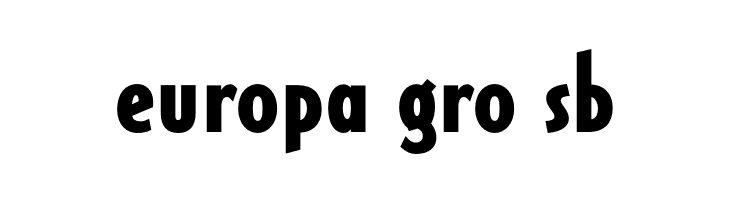
A bold, distressed font with a rugged, vintage texture.
A classic serif font with elegant curves and moderate contrast.
A bold, angular font with sharp lines and a geometric style.
Ornamental dingbat set with compass roses and fleur-de-lis motifs.
A bold, rune-inspired font with sharp, angular edges.
A decorative font inspired by ancient symbols and runes, featuring bold, hand-drawn characters.
A bold, rounded font with smooth curves and consistent width, ideal for modern designs.
A bold, rounded, and modern geometric font with uniform thickness.
A bold, angular font with a distressed, rugged appearance.
A bold, geometric font with a futuristic and edgy style.
A bold, clean sans-serif font with smooth curves and uniform strokes.
A bold, modern sans-serif font with clean lines and a slightly rounded appearance.
A modern, medium-weight sans-serif font with clean lines and versatile style.
A modern, clean font with smooth curves and a balanced structure.
An elegant script font with a refined, flowing style and medium contrast.
A bold, elegant script font with flowing, cursive design and ornate uppercase letters.
An elegant script font with flowing, cursive letterforms and intricate flourishes.
A bold, impactful font with thick strokes and a slightly condensed style.
A sleek, modern font with a slight italic slant and consistent stroke width.
A dynamic, bold font with a slight slant and rounded characters.
A modern, slightly slanted font with rounded edges and a friendly appearance.
A sophisticated script font with flowing, cursive letterforms and elegant flourishes.